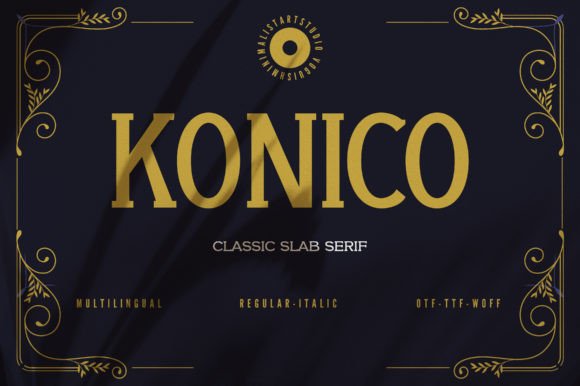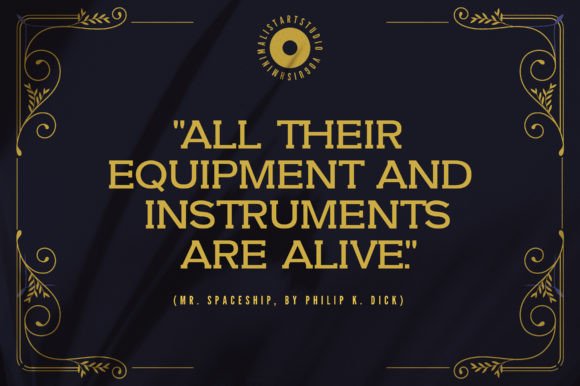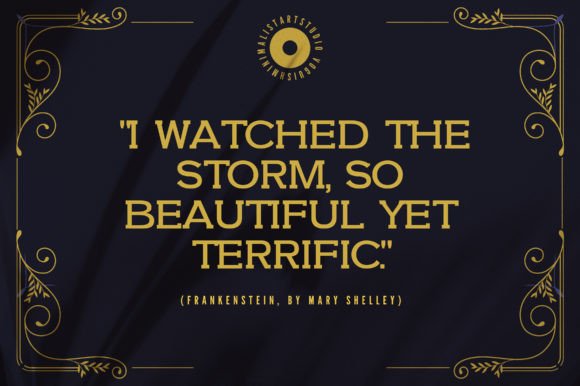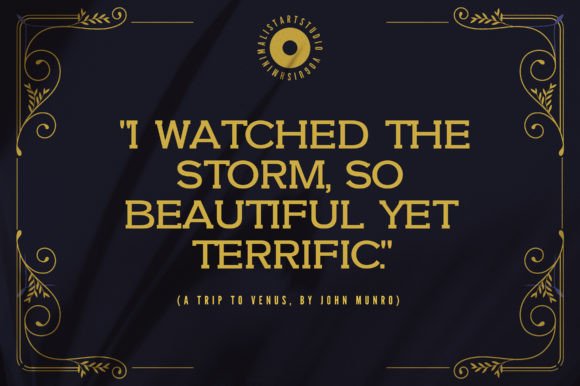
About Konico
Konico is a thick, wonderful and elegant display slab serif typeface. No matter what design theme you are working on, this font will be a great addition to your font library. Add it to your creations, and you will notice how it elevates them to the highest level!